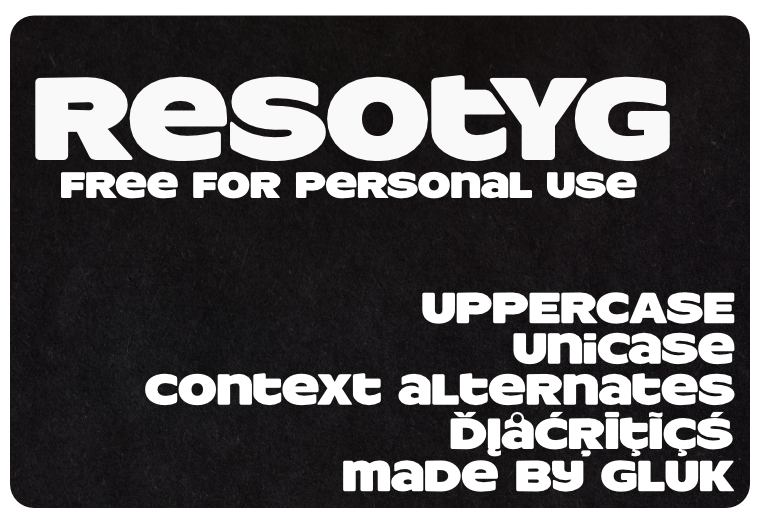
Font ResotYg made by gluk
Dec­o­ra­tive, uni­case font Reso­tYg with many Con­tex­tual Alter­nate Glyphs.
TIP: Play with UPPeR­CaSe and low­er­cAsE and have fun!!